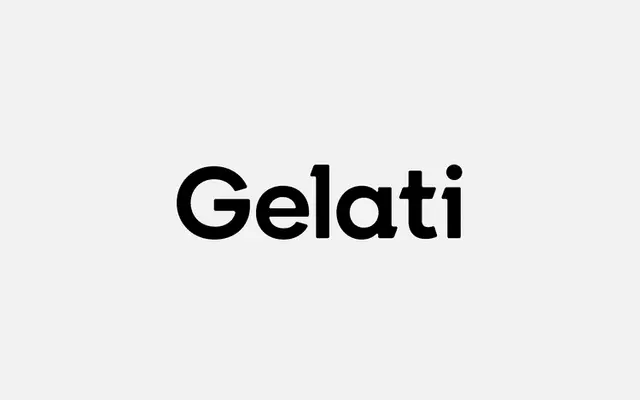
A semi-serif display typeface mixing soft rounded corners with angular strokes across bold, contemporary letterforms.
Gelati sits between serif and sans-serif, applying selective serifs to otherwise angular and bold letterforms. The contrast between soft corners and sharp strokes gives individual glyphs a distinct character suited to headline and display use. Available as a free OTF download direct from the foundry.
The foundry describes it as a semi-serif combining soft corners with angular strokes; the bold, decorative letterforms and display intent place it firmly in the display category rather than a conventional serif or sans-serif classification.